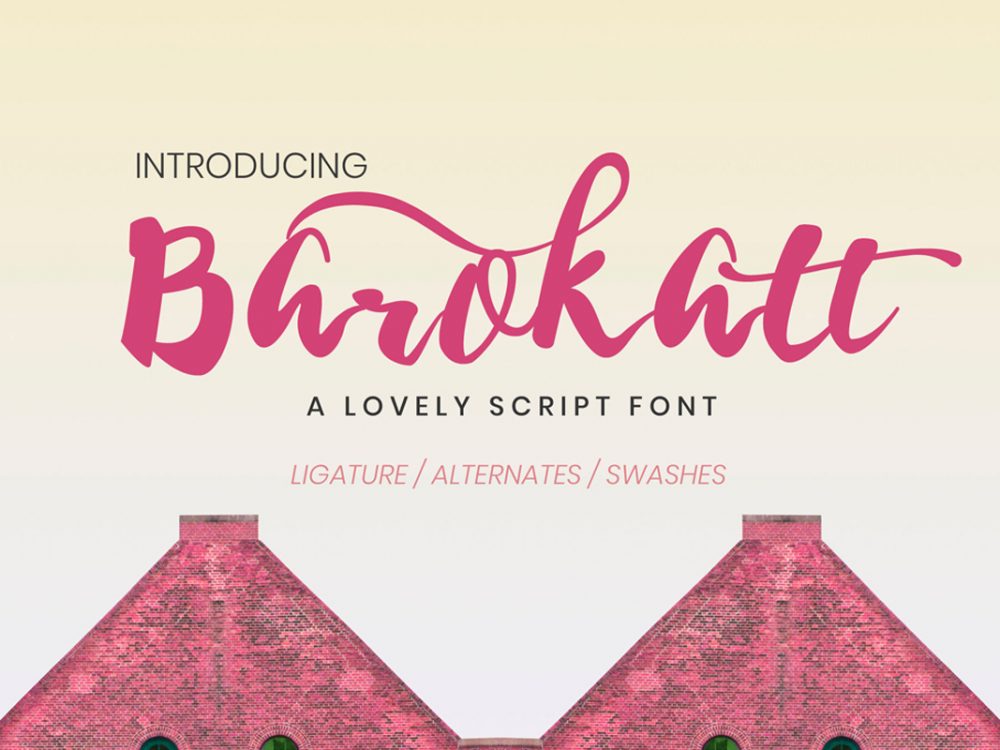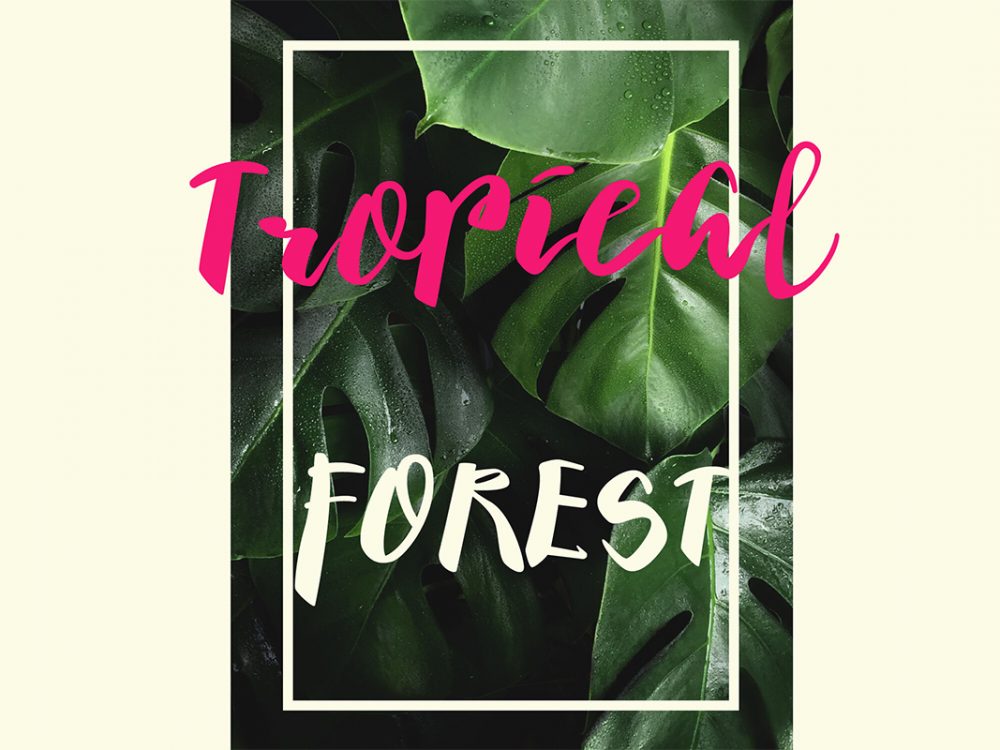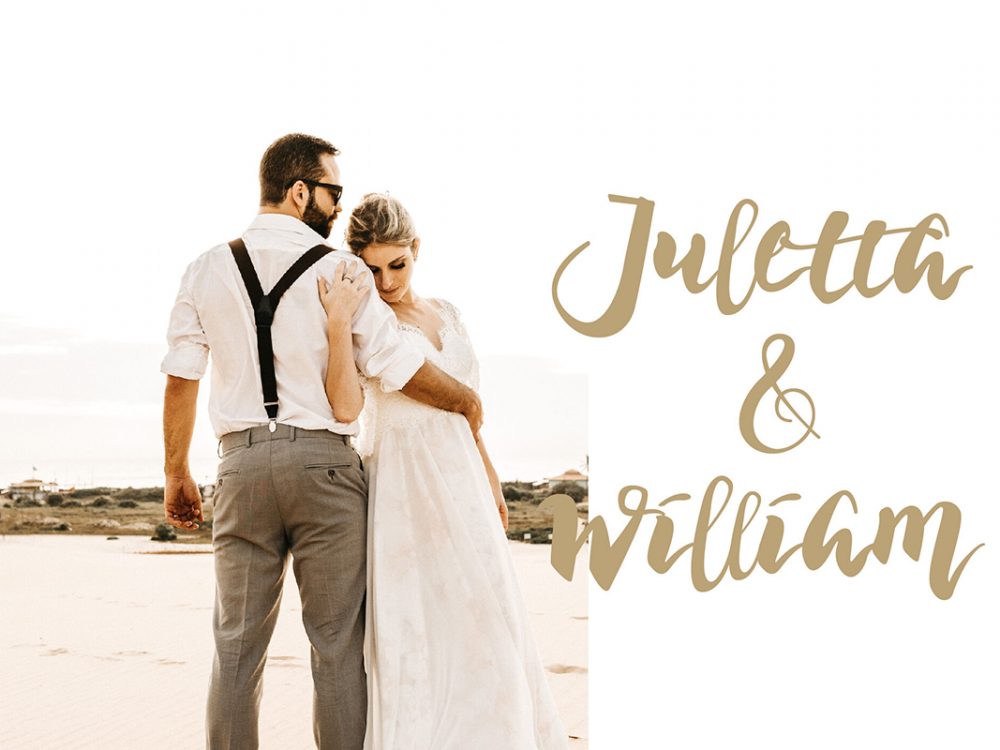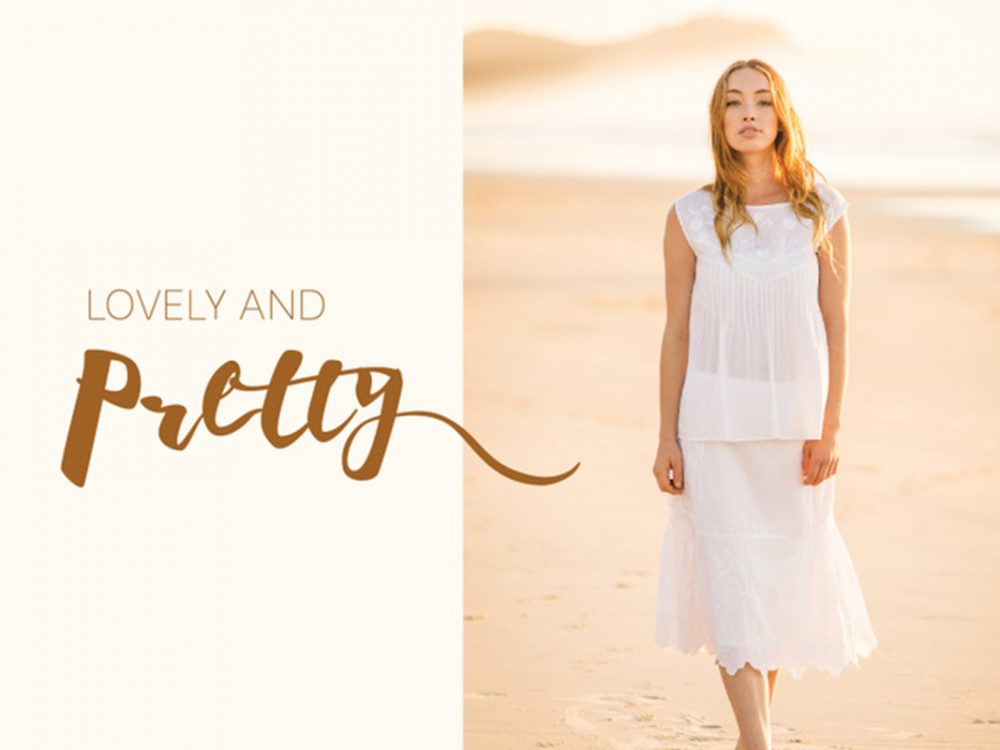
Barokatt Script Font
Barokatt Script Font is a modern and interesting font that has an elegant style and is perfect for many design projects that require a scriptable, memorable font. These can be posters, wedding invitations, branding, flyers, prints, and more. If you interested in his font, go get it and support this author to buy his premium version.